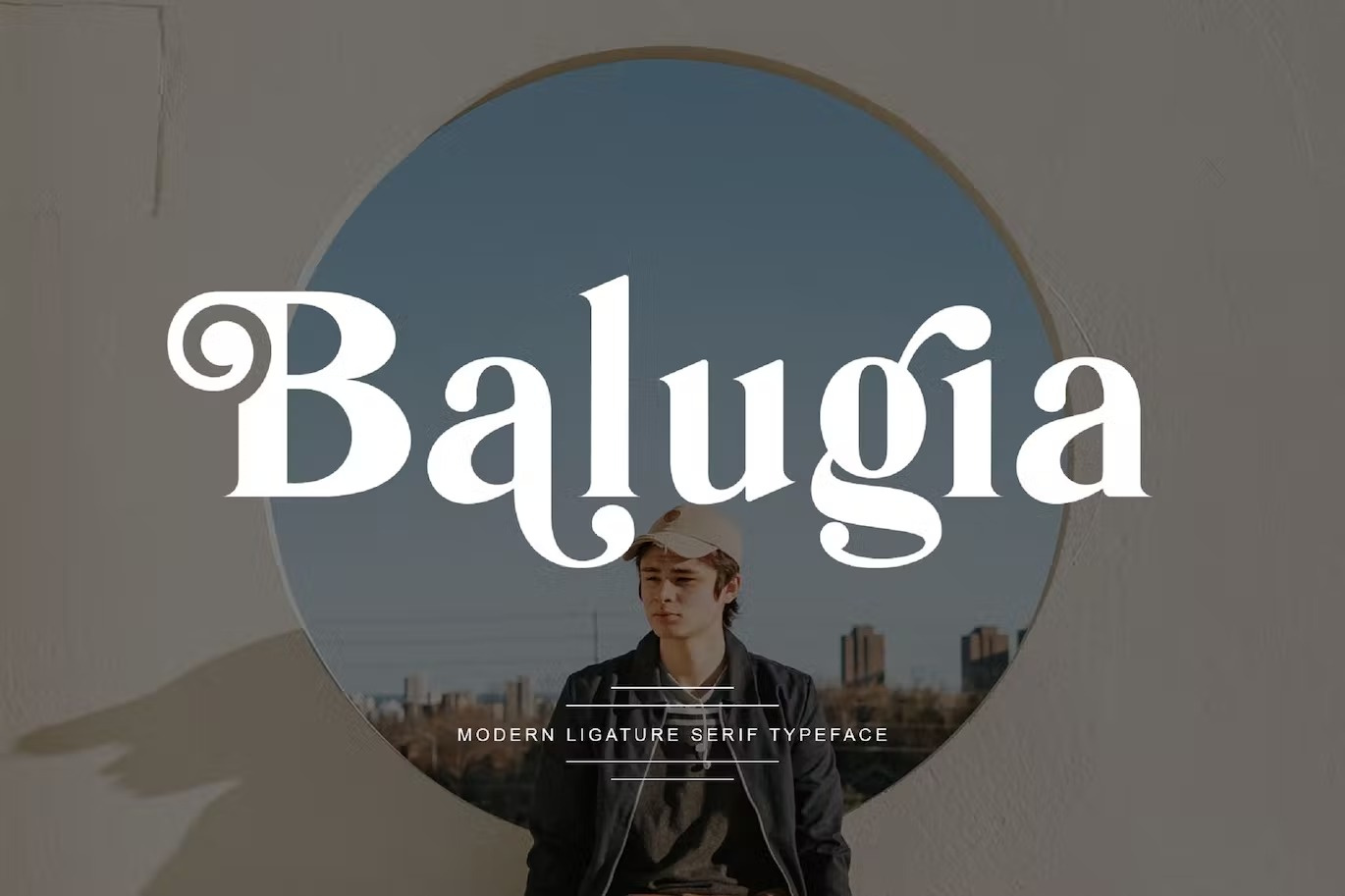
Ballugia Font
Rastings Ligature Serif Font inspired by the famous minimalist logo perfect for the purposes of designing templates, brochures, videos, advertising branding, logos, invitation, layout design, elegant crafting, beauty design and more